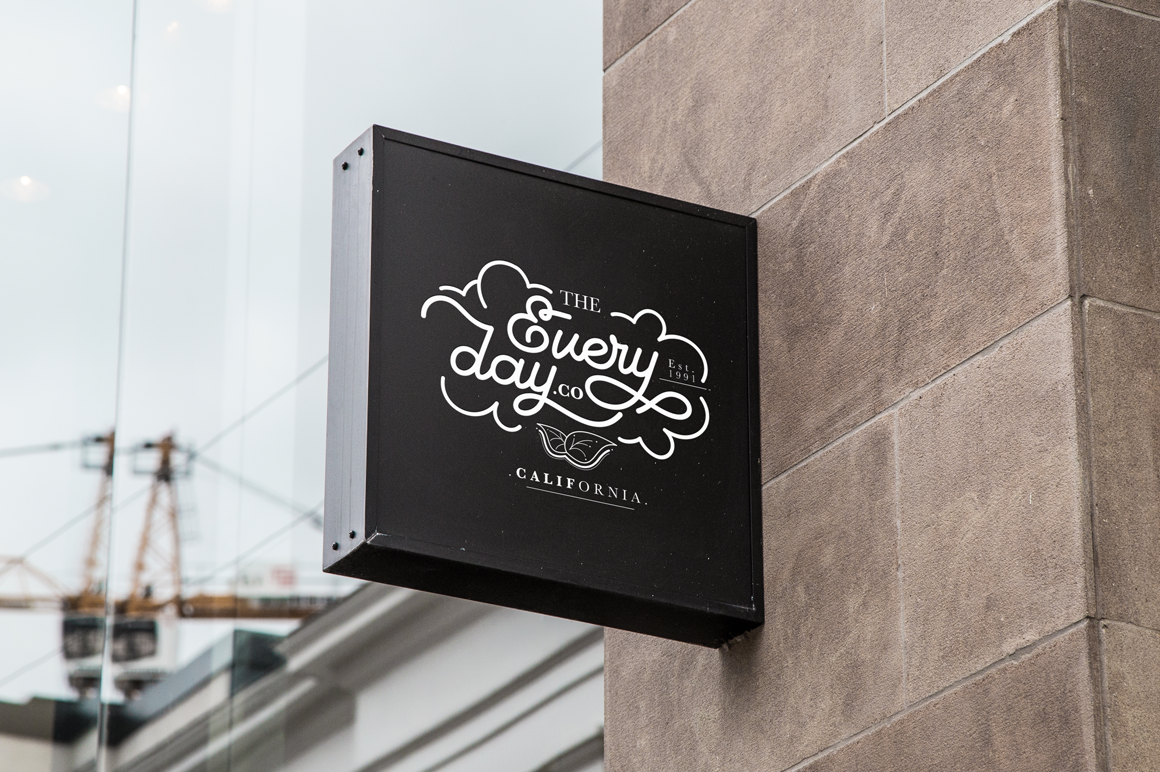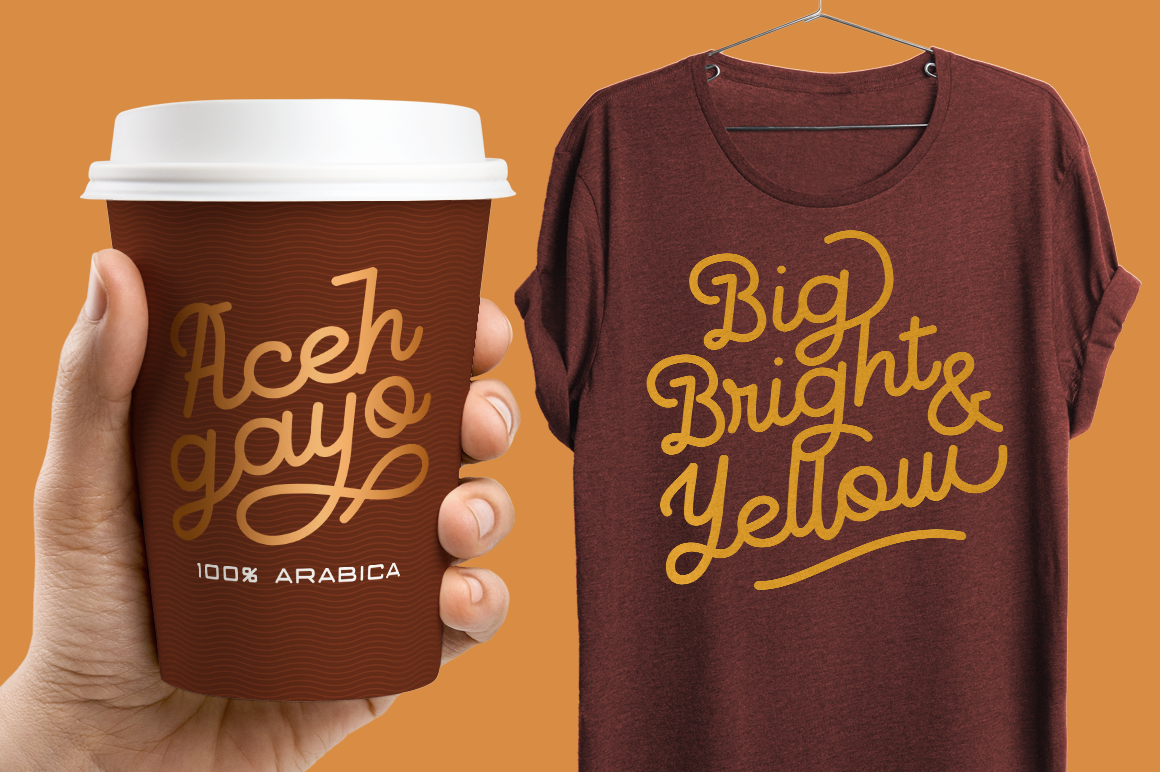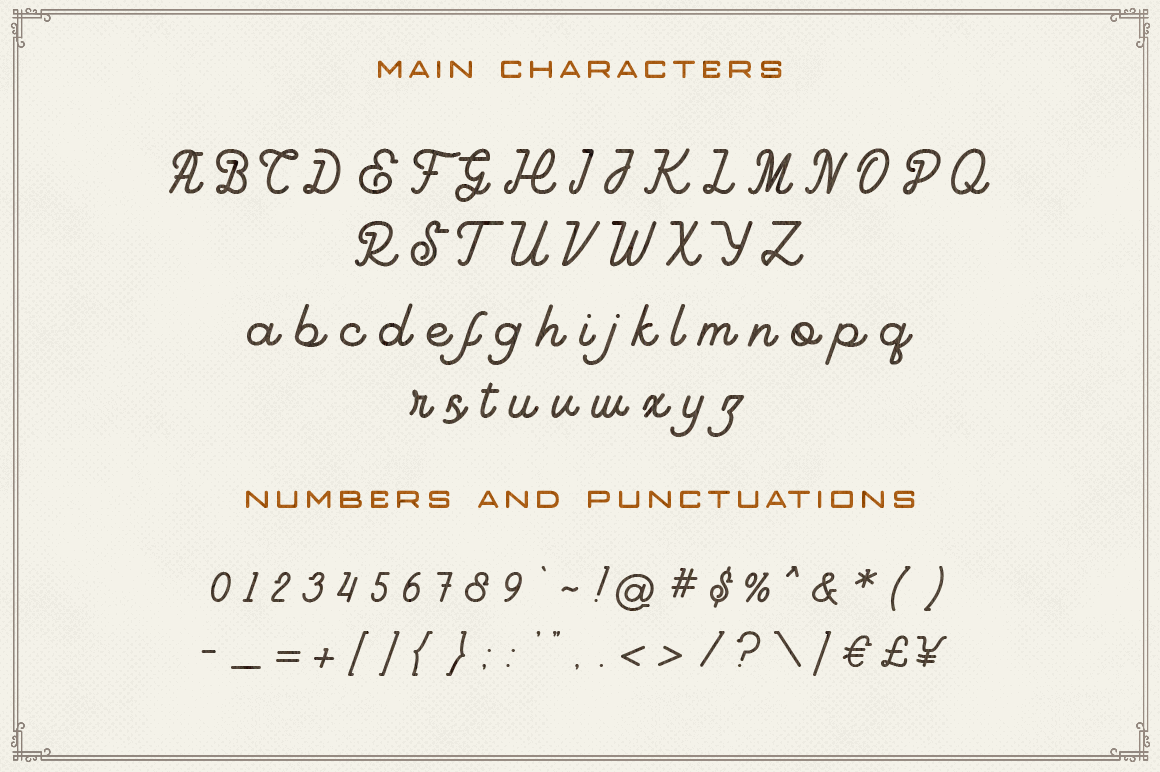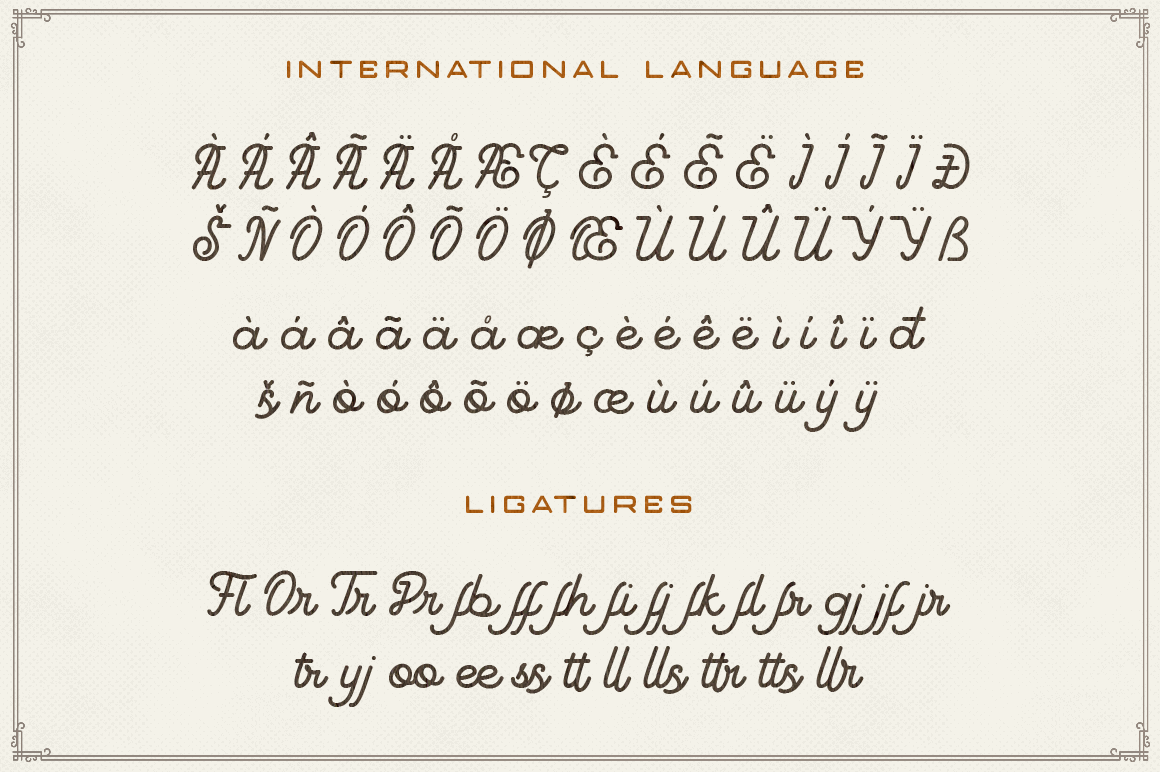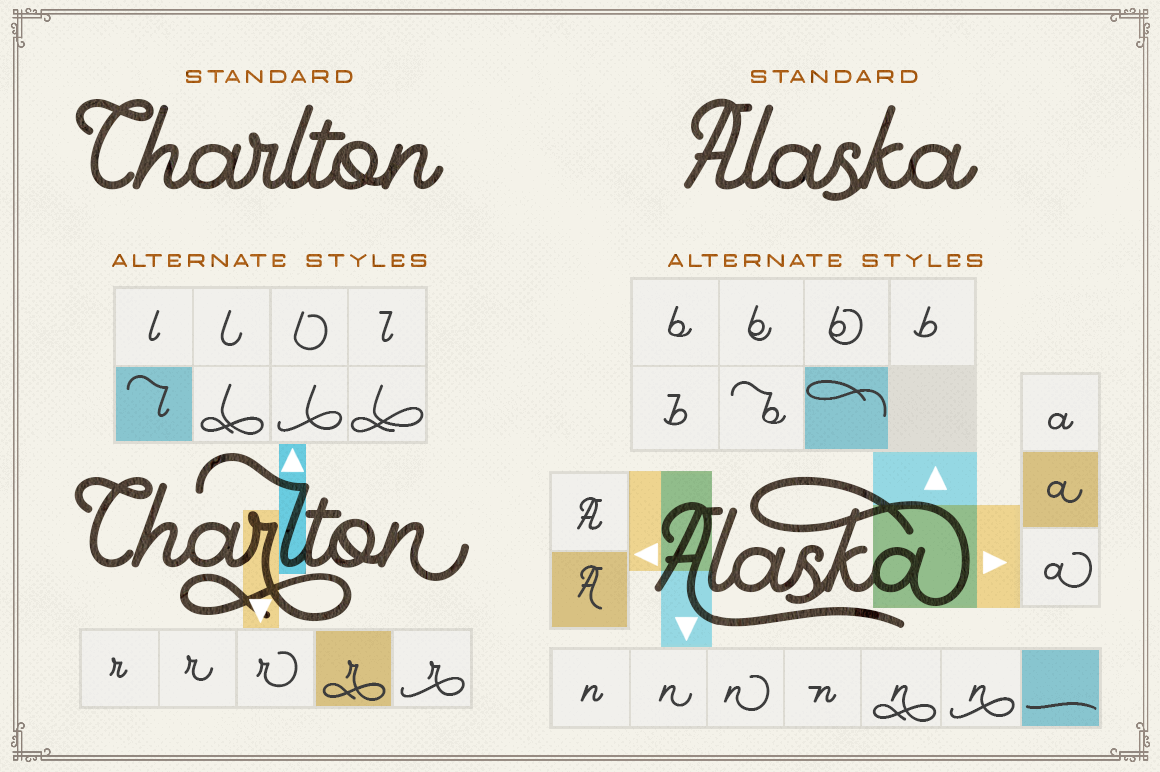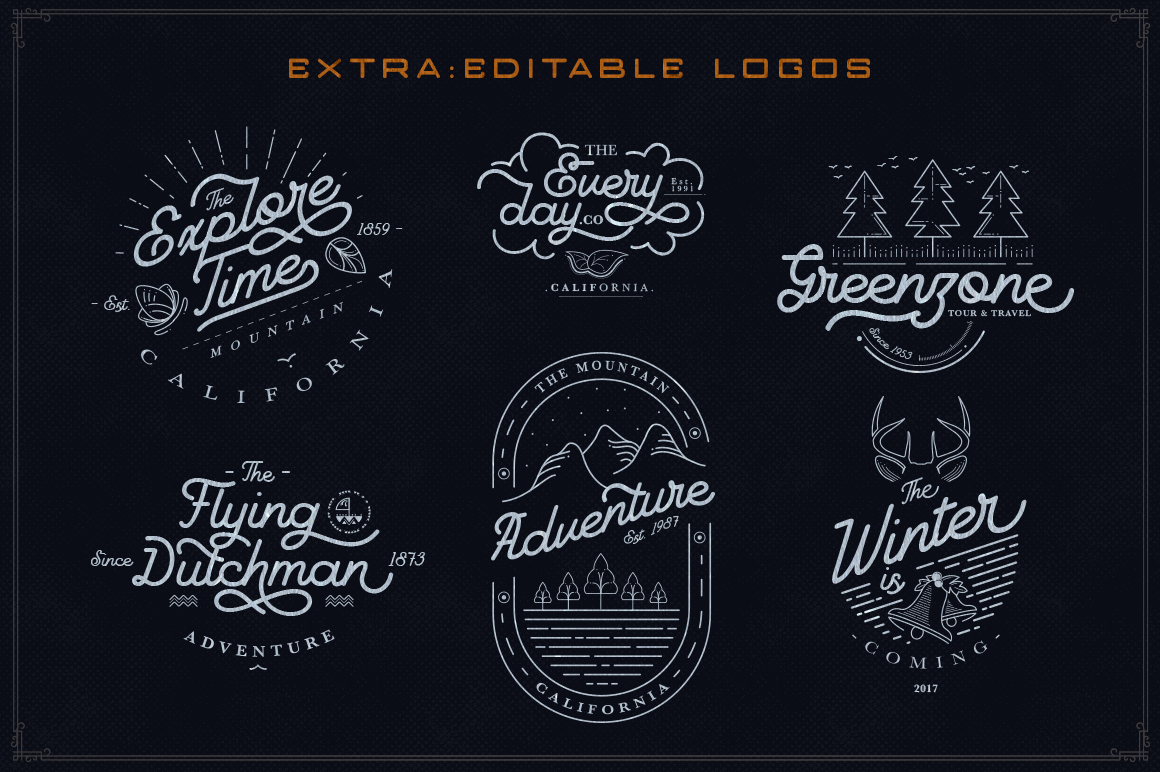
Introduction to Goodline – Monoline Font Font
Fonts play a crucial role in design, and the Goodline – Monoline Font font is a typeface that brings both character and versatility to any project. Whether you’re working on a branding project, a website, or a print design, the Goodline – Monoline Font font offers a unique style that can elevate your work.
Goodline is a beautiful monoline font with movement and grace.
Although simple, Goodline is stunning as a display, and can give your headlines a clean and modern look and feel .
Key Features of Goodline – Monoline Font Font
Why Choose Goodline – Monoline Font Font?
The Goodline – Monoline Font font is more than just a typeface – it’s a design tool that helps you communicate your message with style and clarity. Its unique character set and versatile design make it suitable for a wide range of applications, from elegant invitations to bold headlines.
With its carefully crafted letterforms and balanced proportions, the Goodline – Monoline Font font ensures readability and visual appeal across all mediums.
What makes Goodline – Monoline Font font special?
The Goodline – Monoline Font font stands out with its unique design, exceptional readability, and versatility across various design applications.